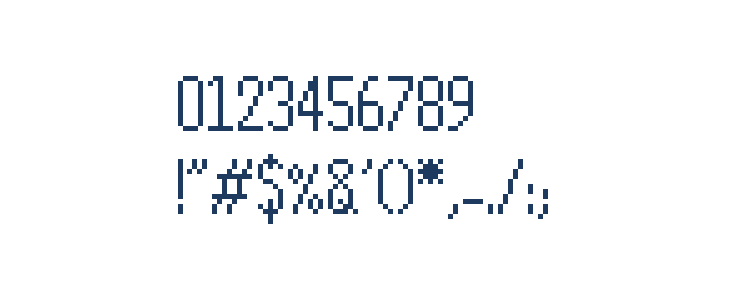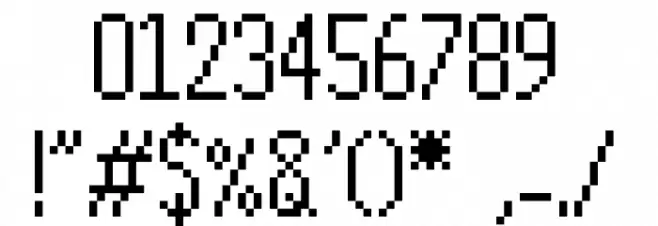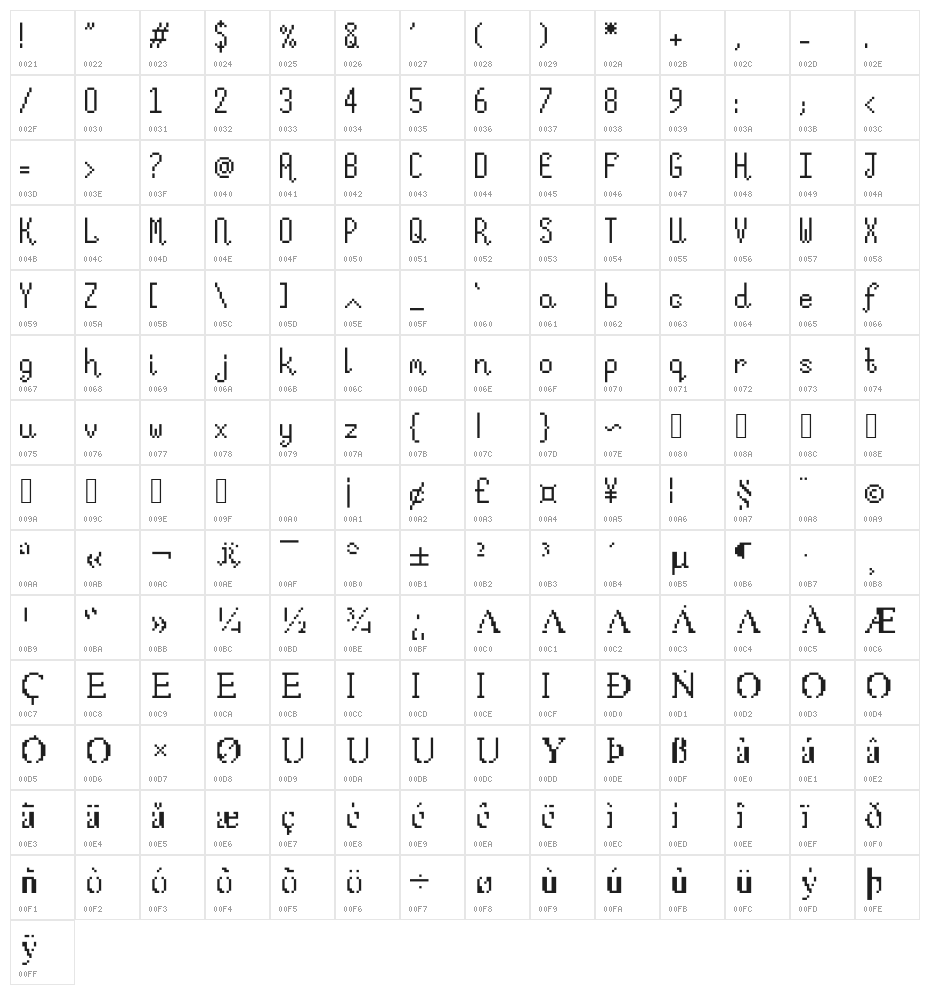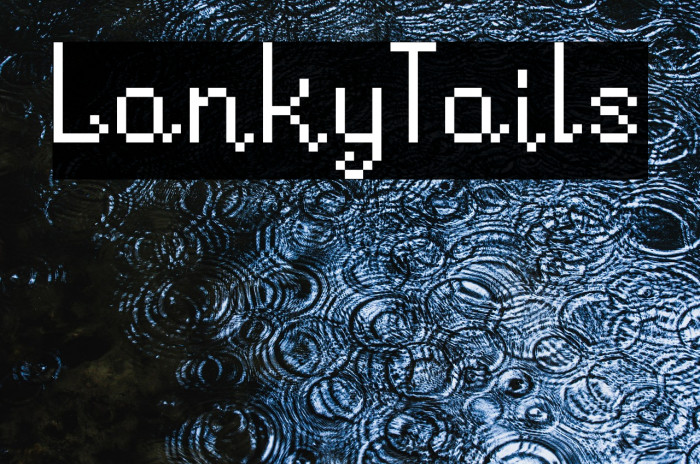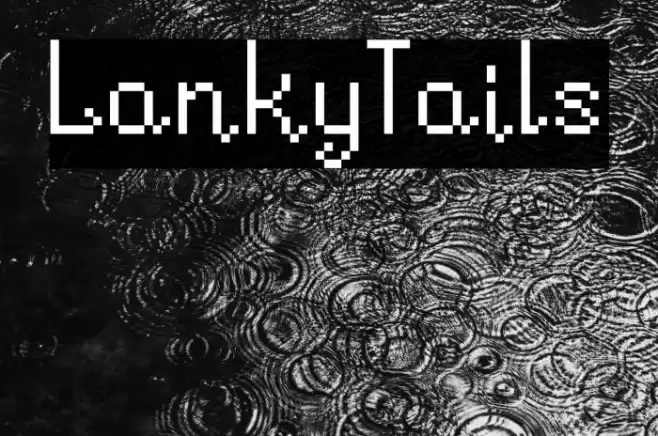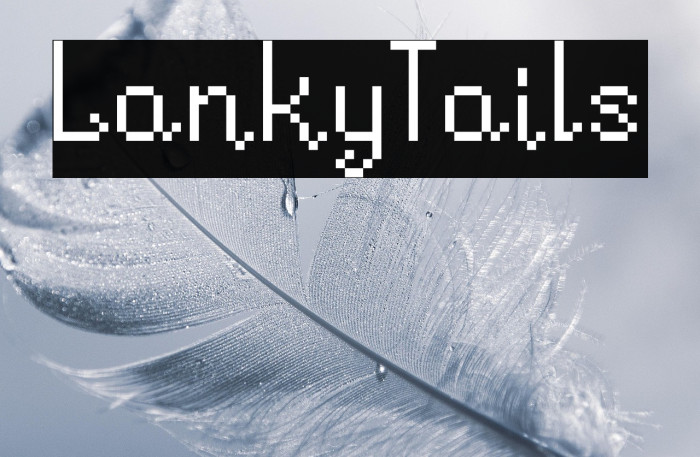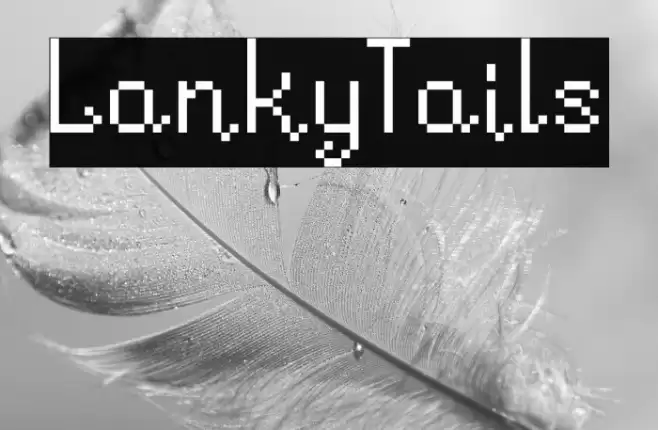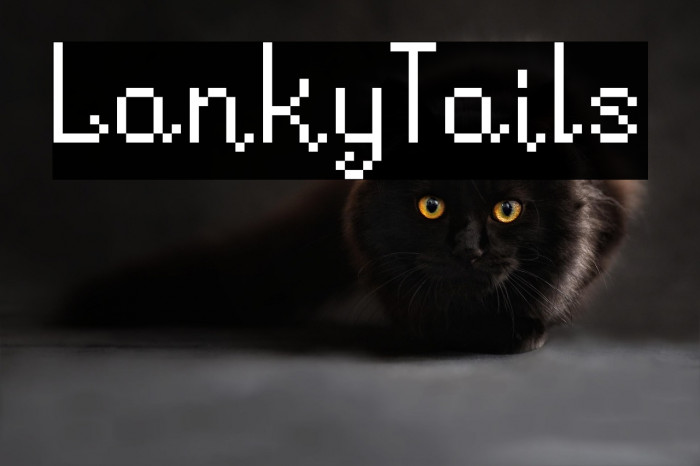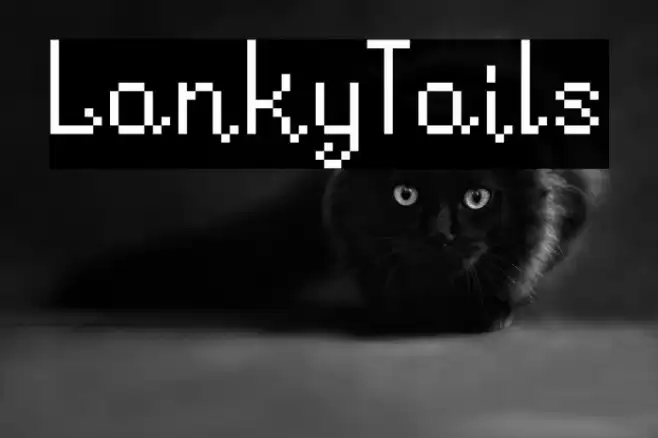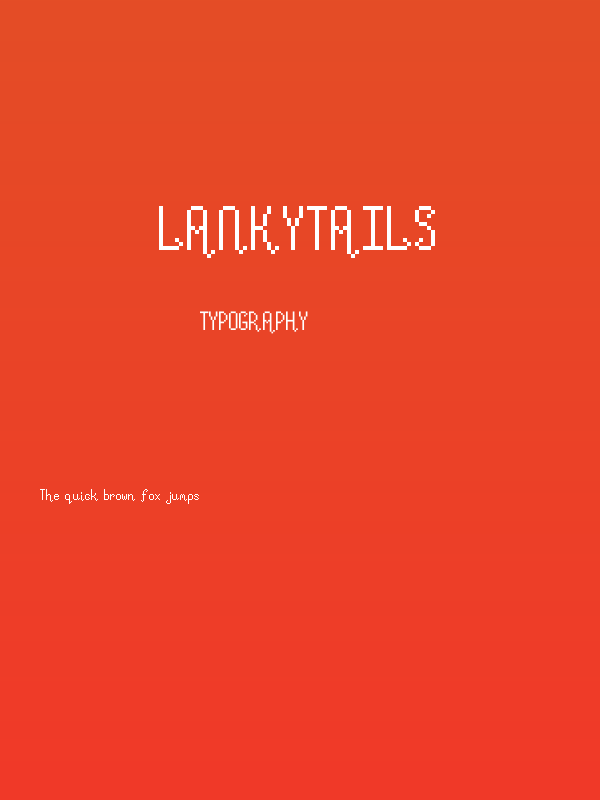
LankyTails Font
LankyTails Description
This font features a playful and quirky design with elongated, narrow characters that give it a unique and whimsical appearance. The letters are constructed with a pixelated, grid-like structure, reminiscent of retro digital displays or early computer graphics. The uppercase and lowercase letters maintain a consistent style, with distinct, exaggerated curves and angles that add to its charm. Numbers and special characters follow the same design principles, ensuring uniformity across the entire character set. The font's overall aesthetic is both nostalgic and modern, making it suitable for creative and unconventional projects.
| Overall Style | Retro, Modern |
| Proposed Projects | Ideal for video game graphics, retro-themed designs, digital art projects, and creative branding. |